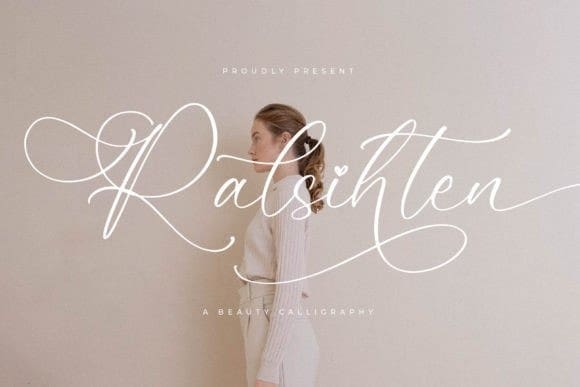
Ralsihten Font
Ralsihten Font – Beauty Calligraphy , created by Storytype, A luxury script that has own unique style & modern look. This typeface is perfect for an elegant & luxury logo, book or movie title design, fashion brand, magazine, clothes, lettering, quotes, and so much more.